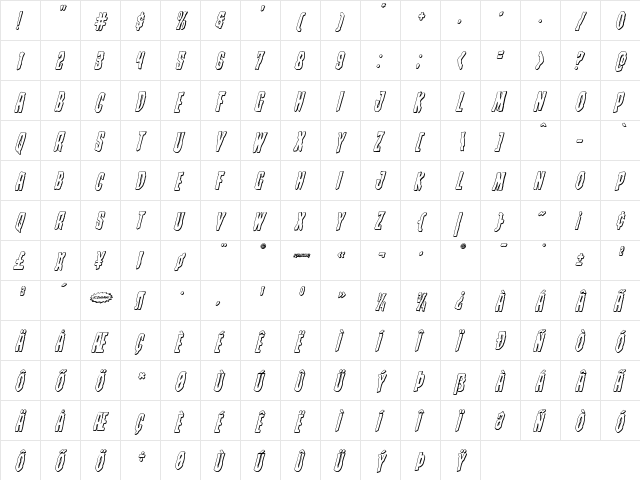
Creepy Crawlers 3D Italic Italic
Design Context for Creepy Crawlers 3D Italic Typeface
Creepy Crawlers 3D Italic leans into the macabre with letterforms designed to disturb and intrigue in equal measure. The slanted form adds forward momentum and visual energy.
Ideal for Halloween projects, horror film titles, haunted house signage, and dark editorial design.
Font Pairing: Pair with a clean neutral sans-serif for body copy to let Creepy Crawlers 3D Italic's character lead without overwhelming the composition.
Pro Tip: Creepy Crawlers 3D Italic works best as a headline or focal element. Pair it against plain, neutral body text to amplify the contrast.